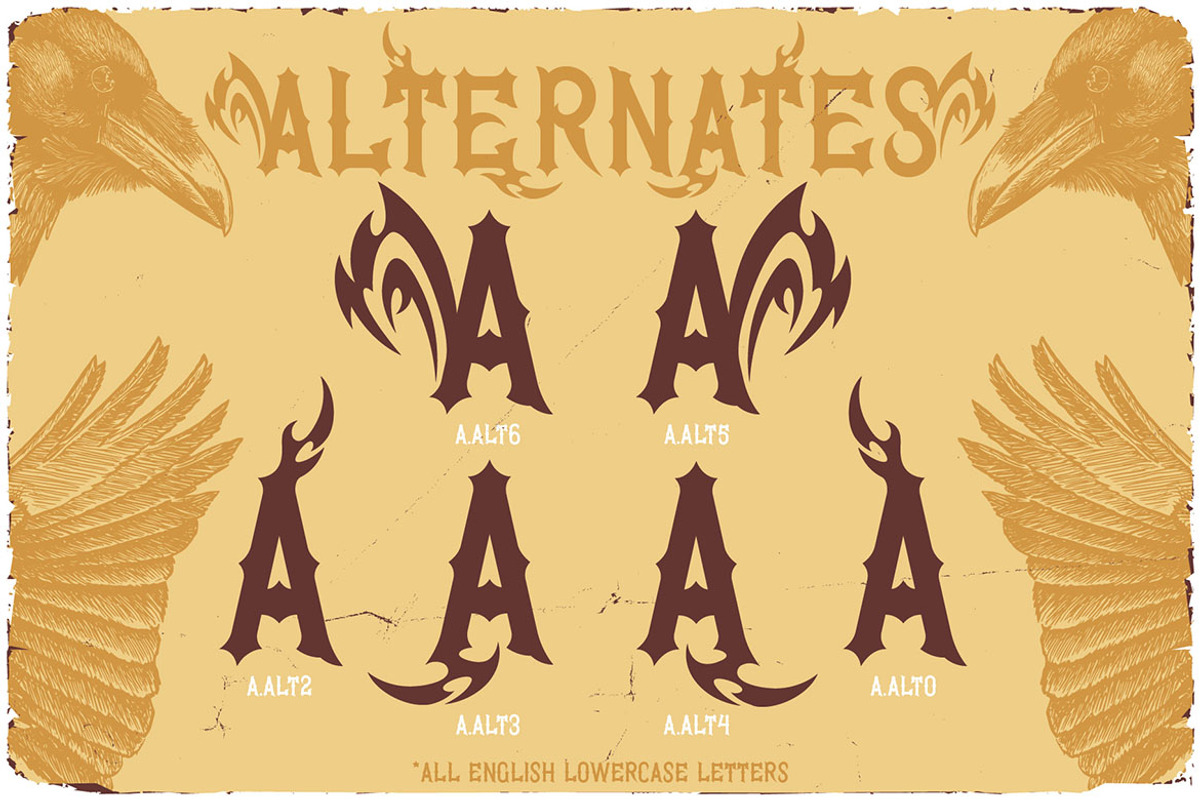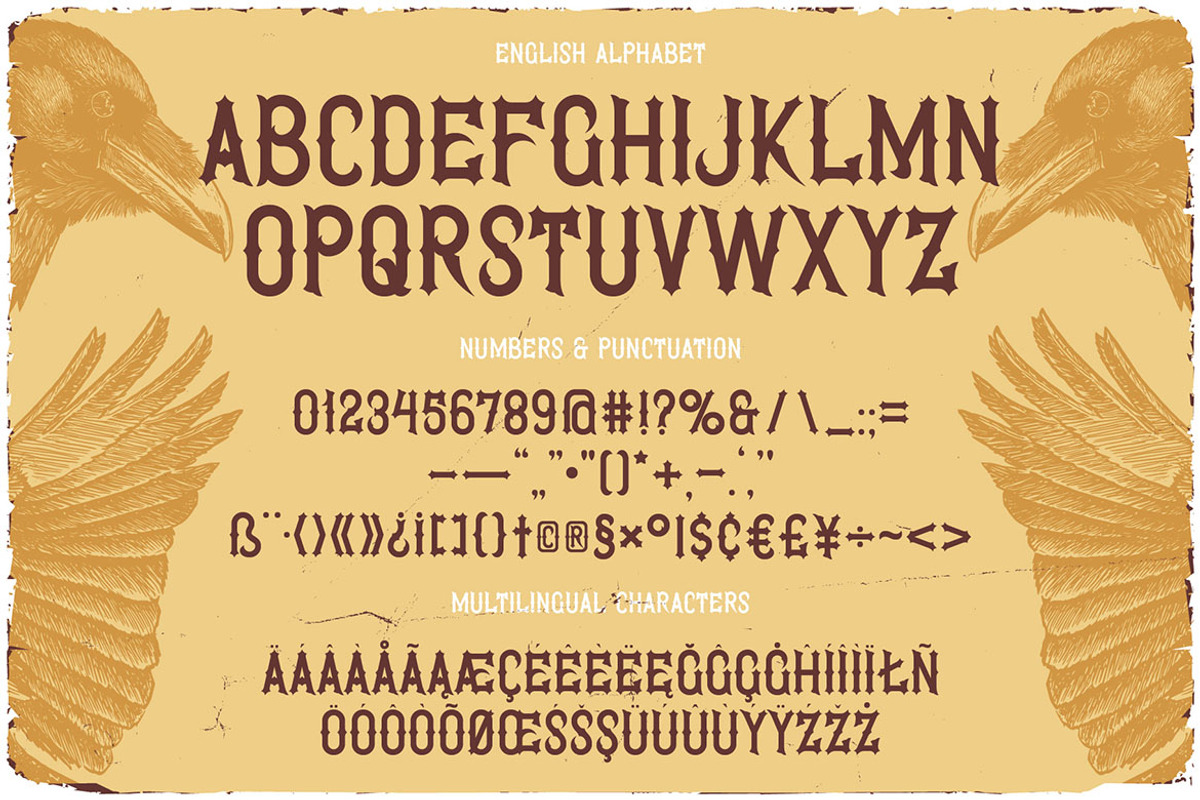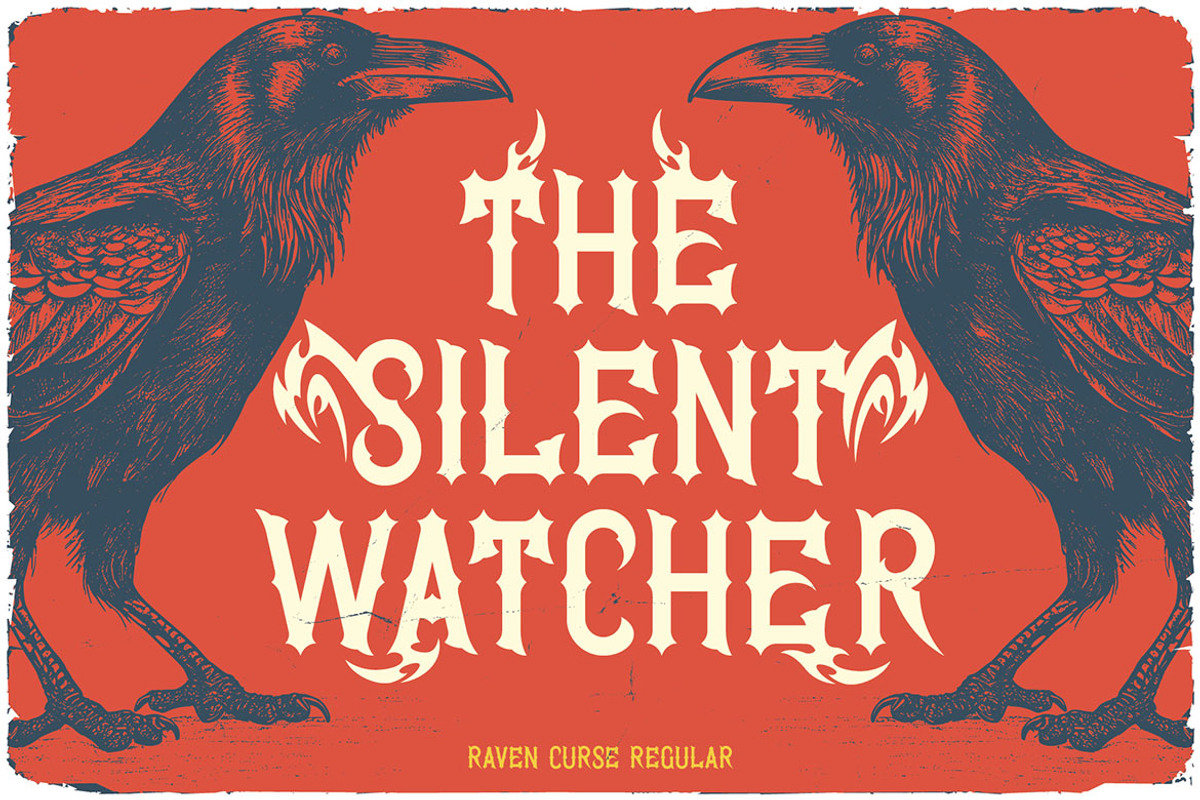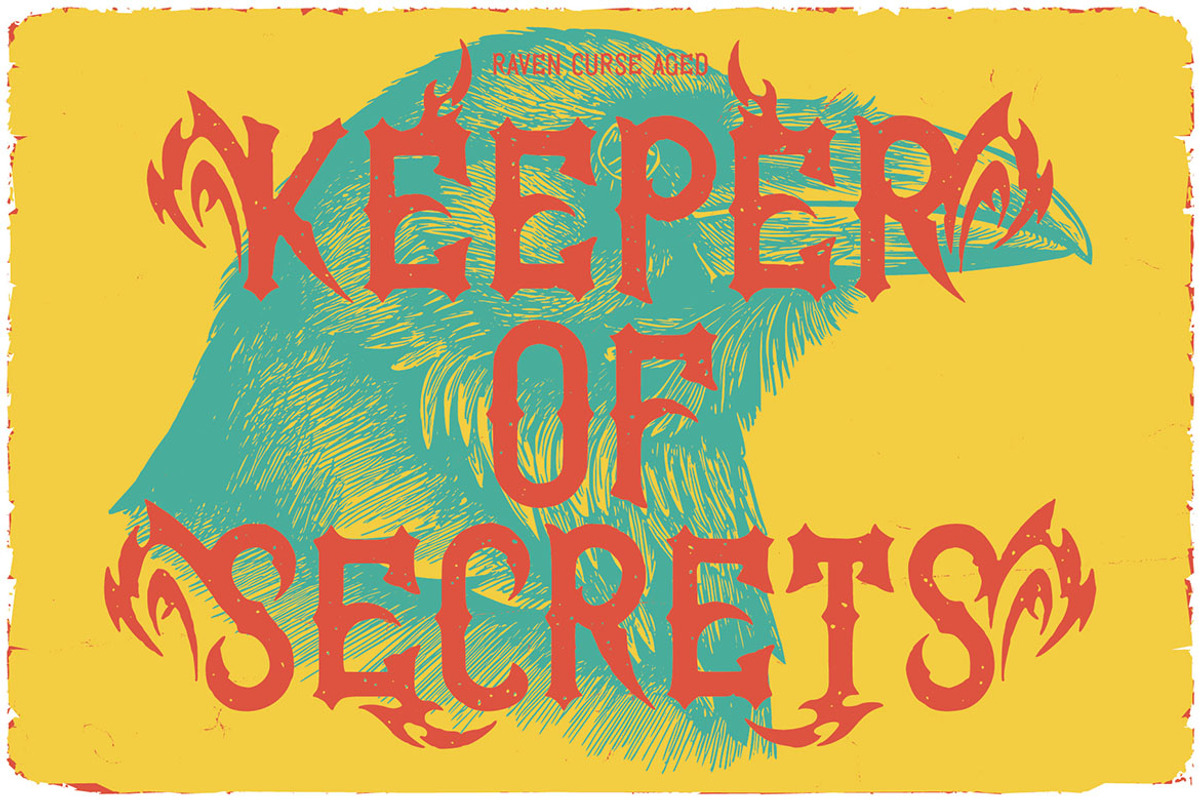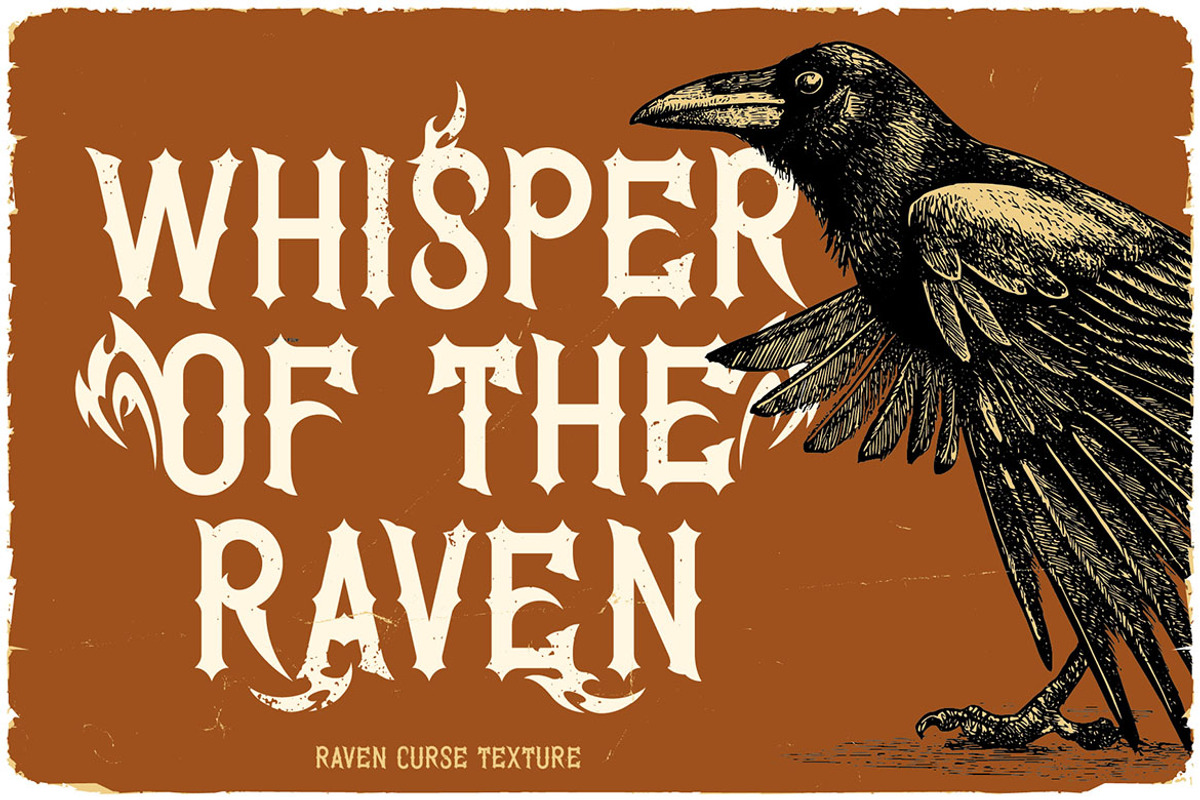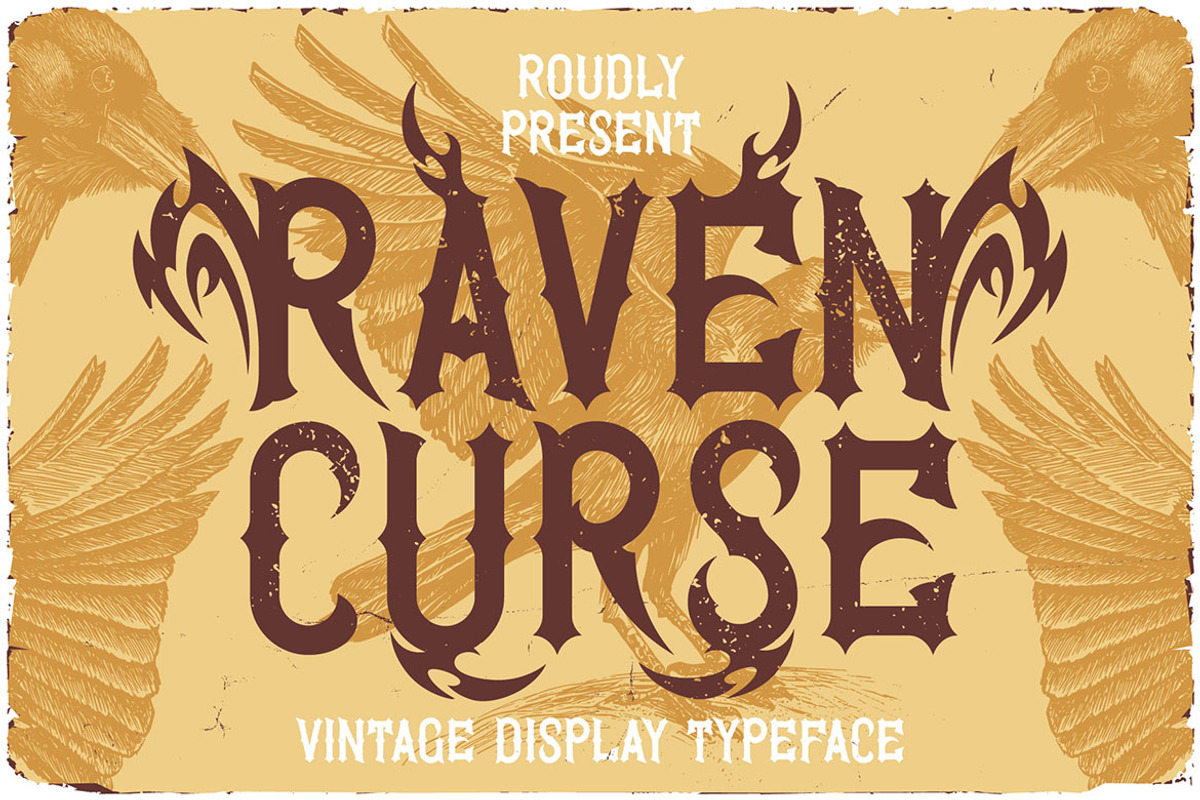
Raven Curse - Decorative Blackletter
Unique, vintage, textured, decorative, horror, fantasy & blackletter font. Comes with multilingual support & lot of alternate characters + aged & textured font versions - great for your new logo, monogram or branding project.
- 3 font versions - regular, aged & textured
- Multilingual support & lot of alternate characters
- Great for your new logo, monogram or branding project